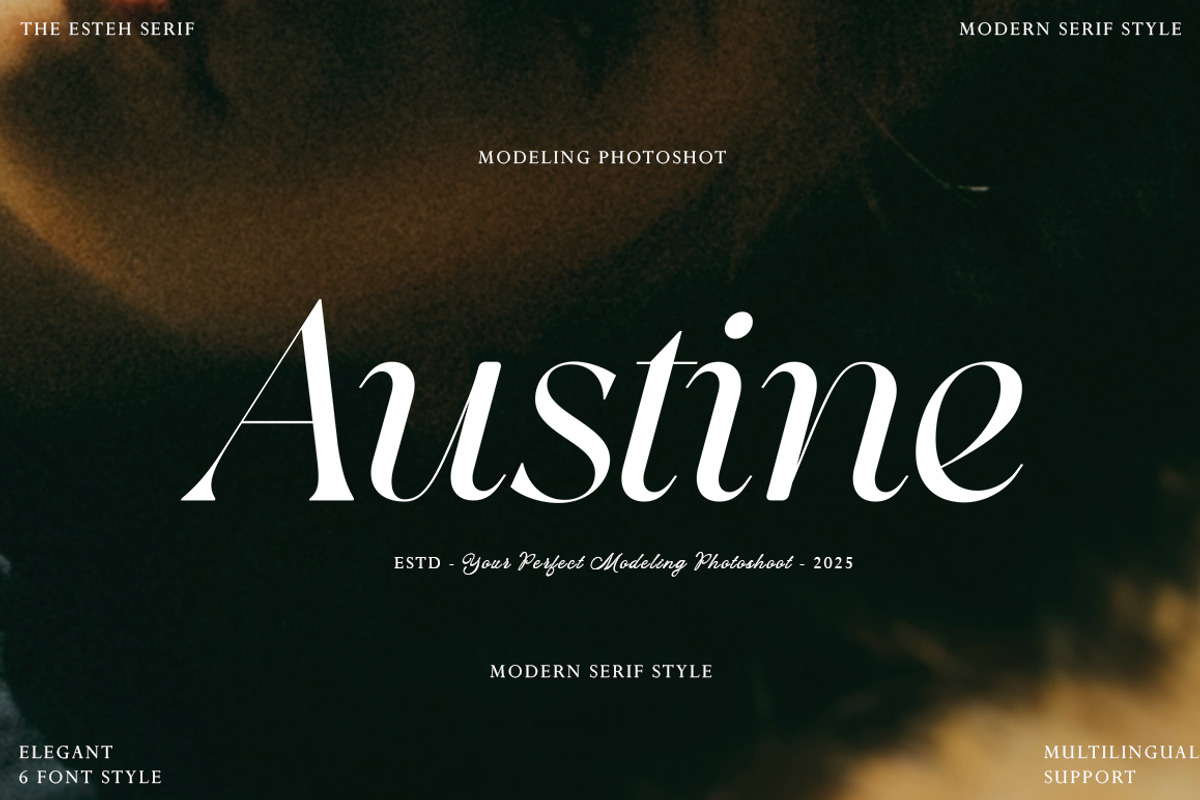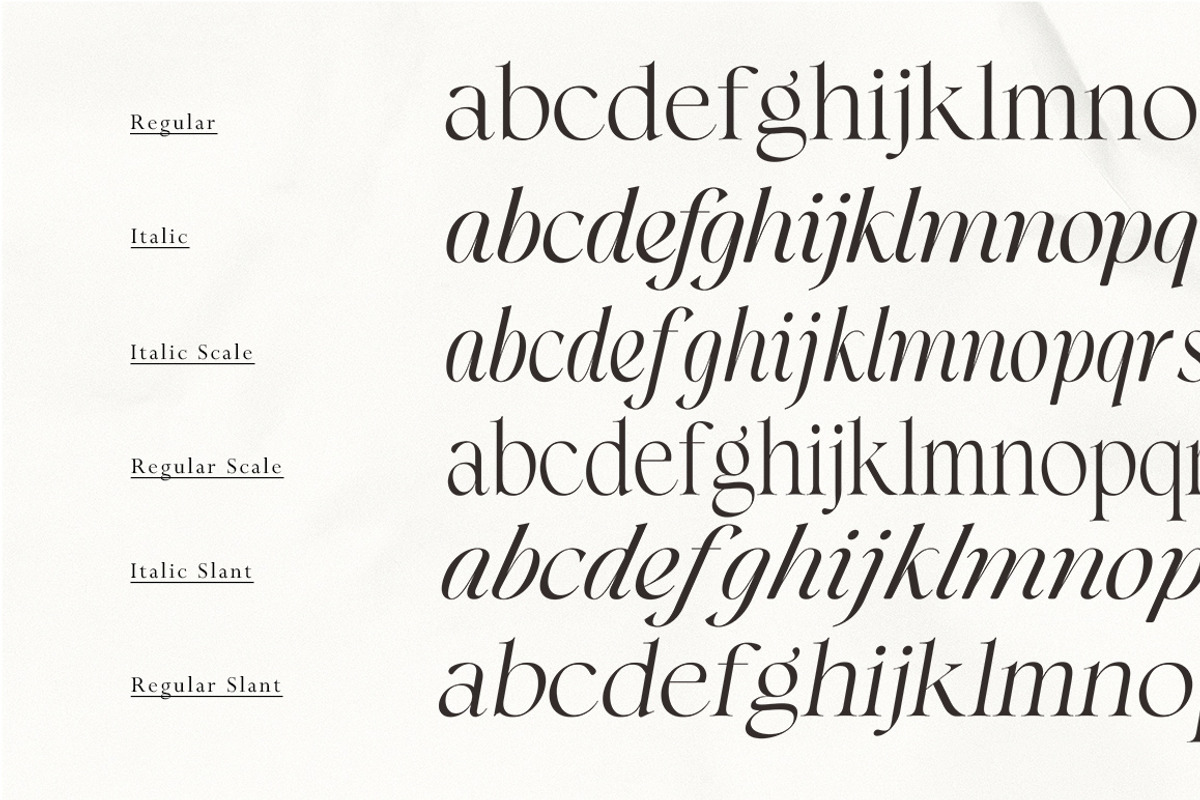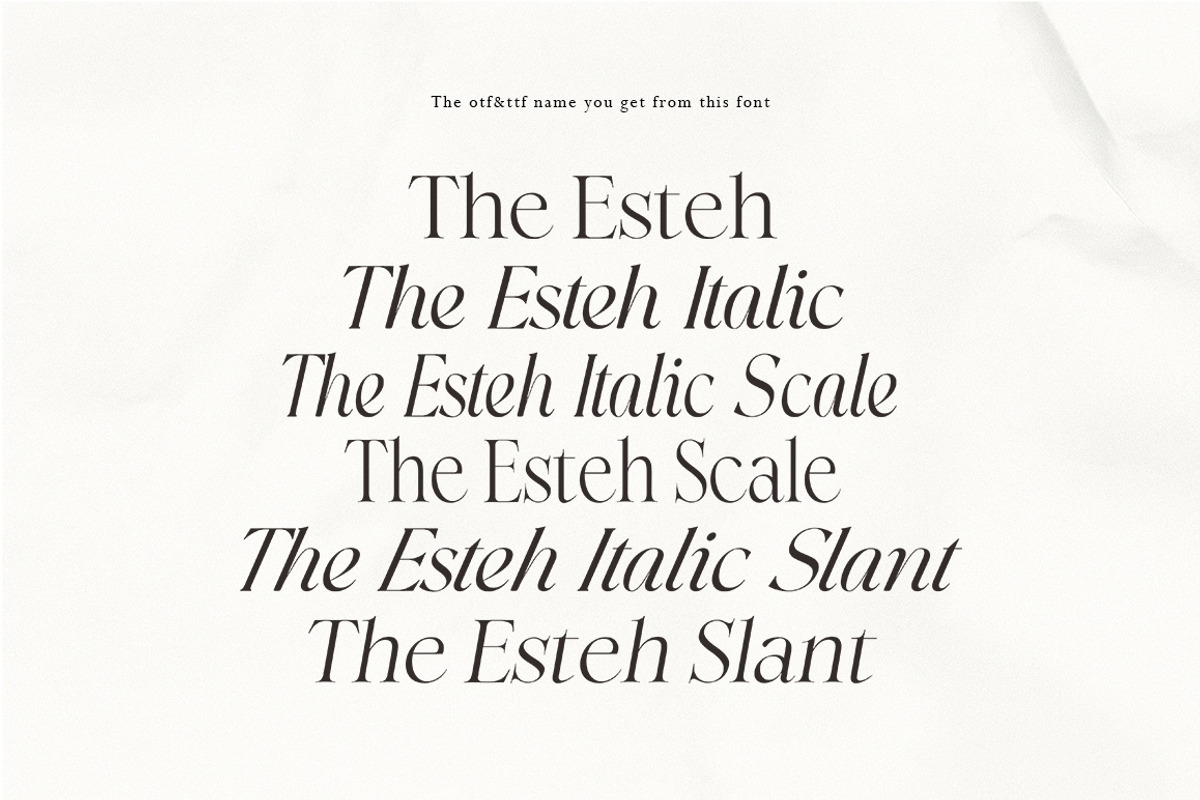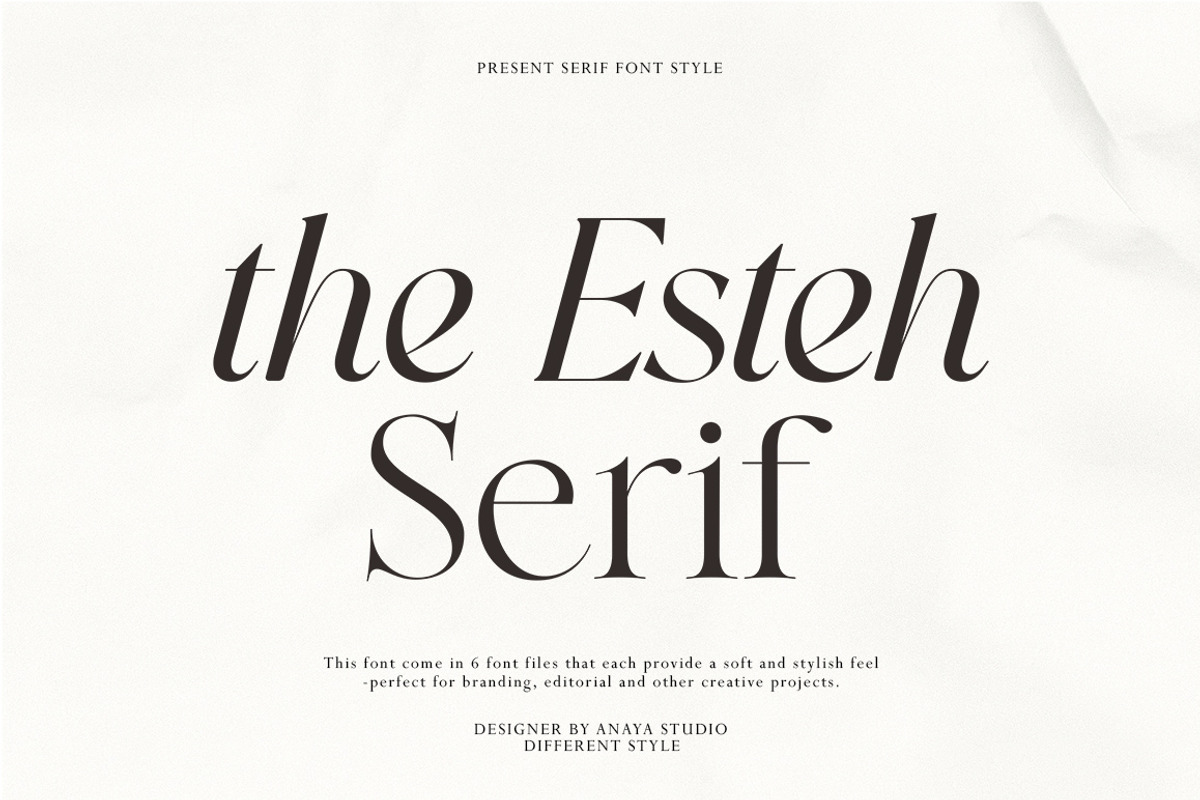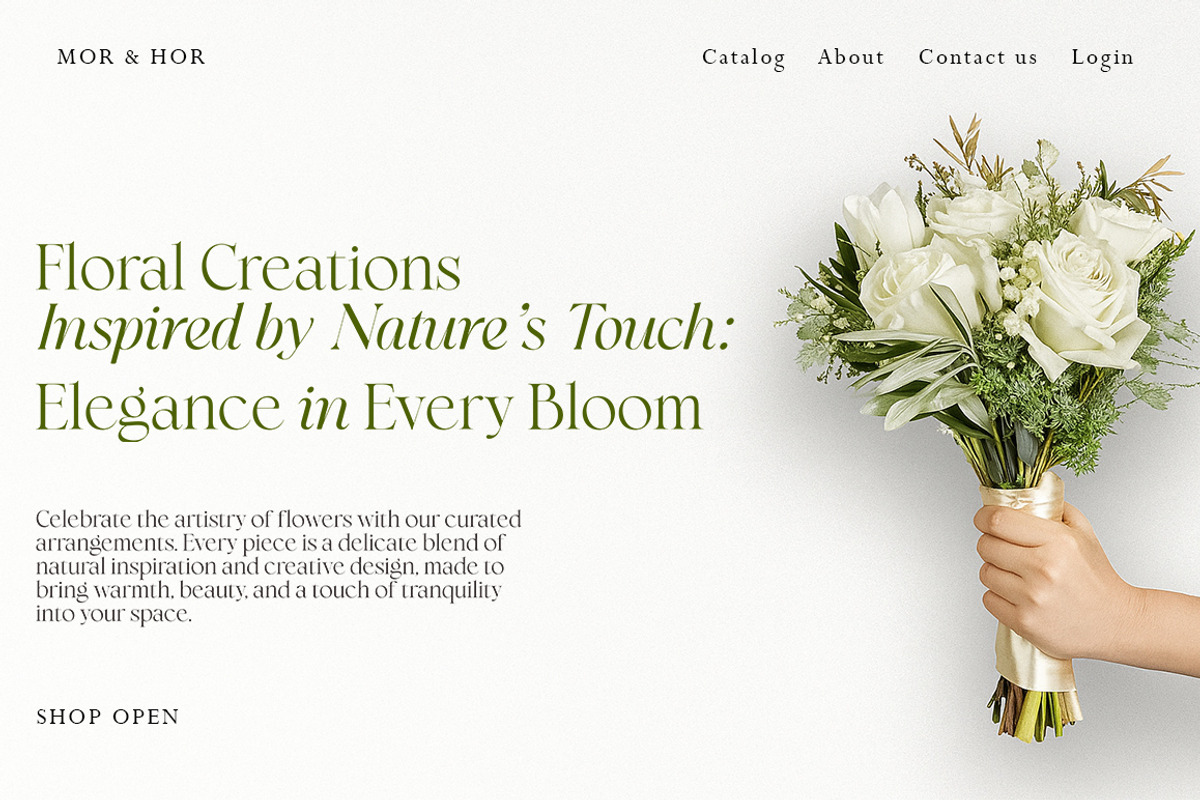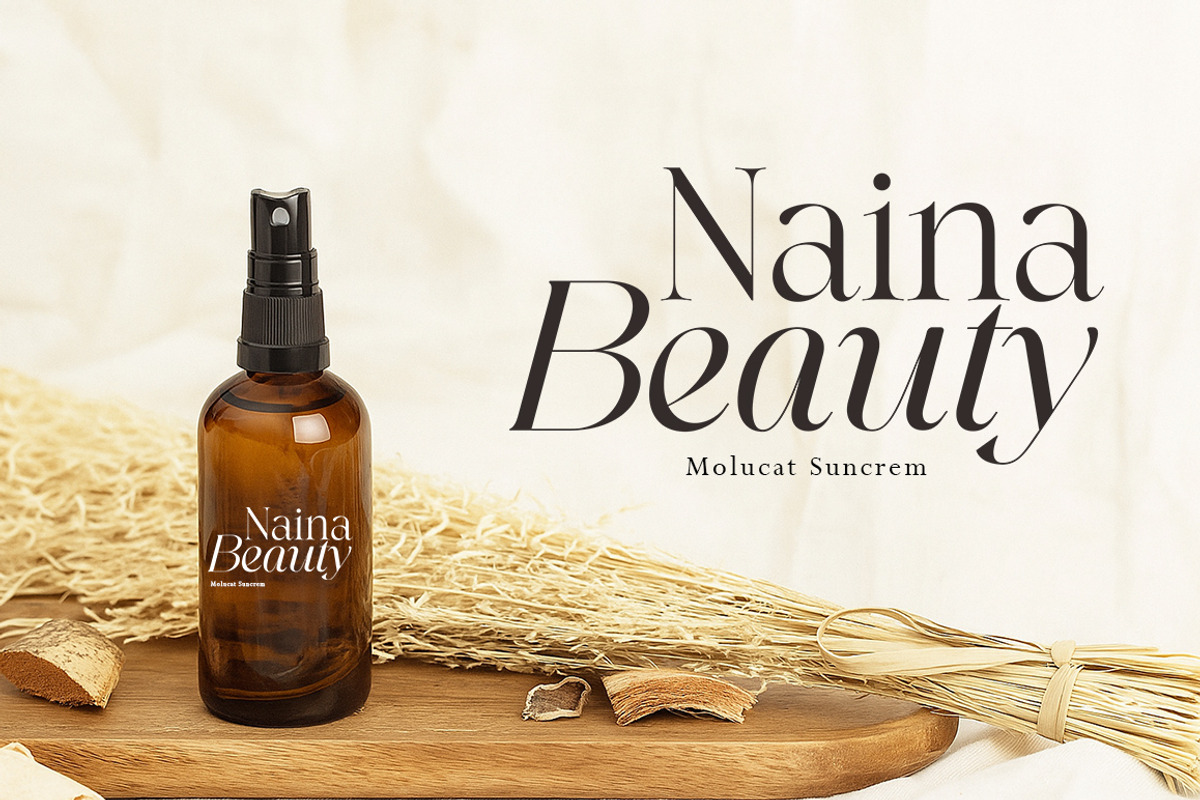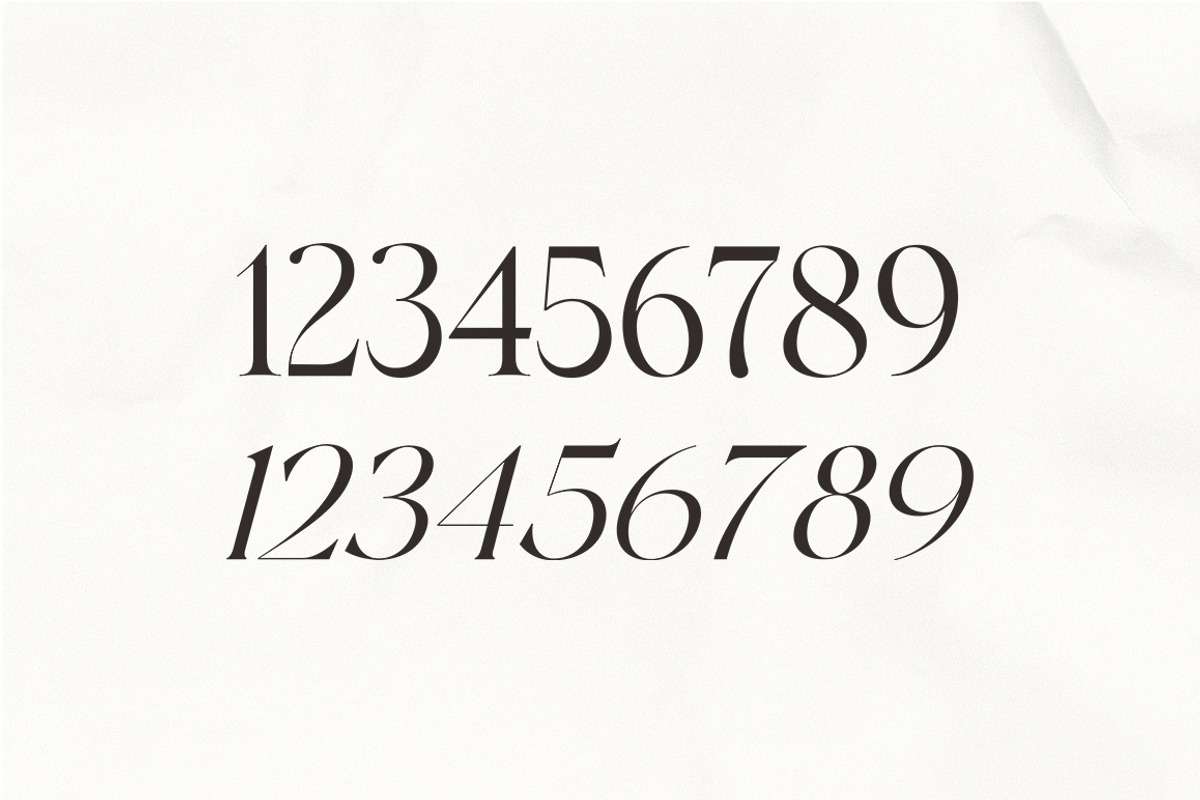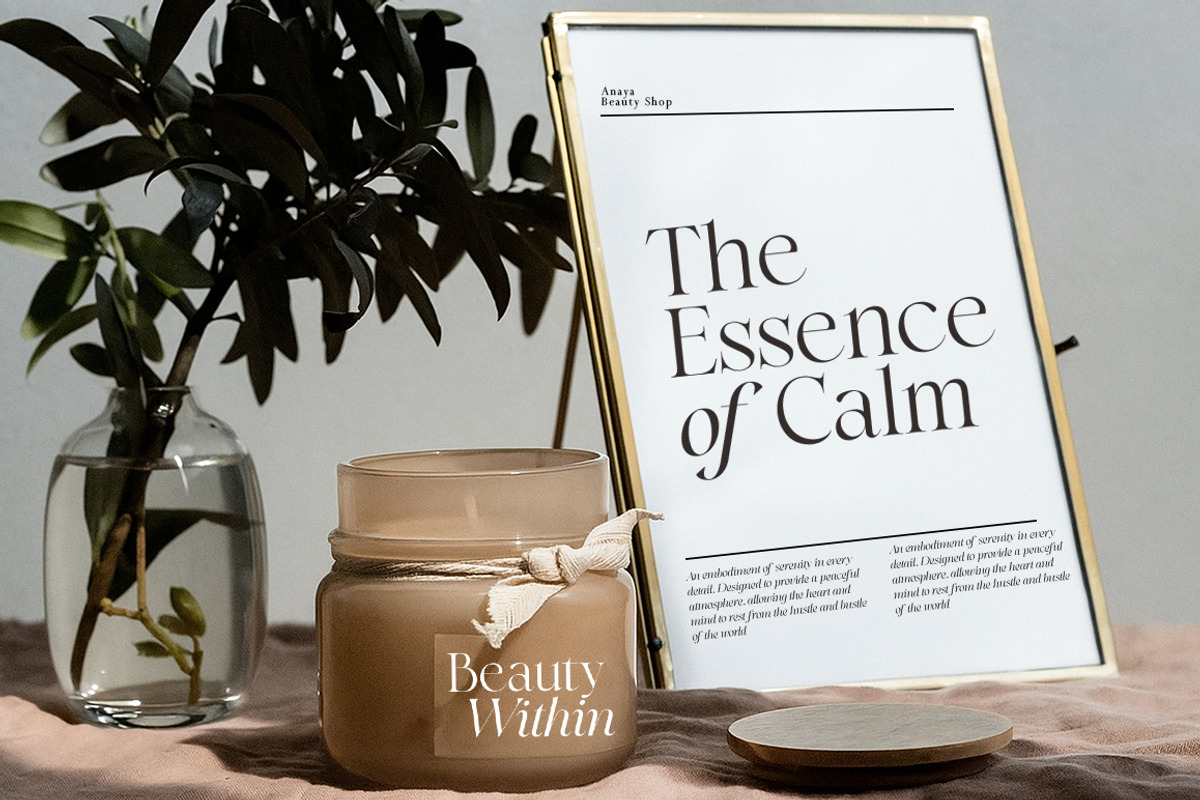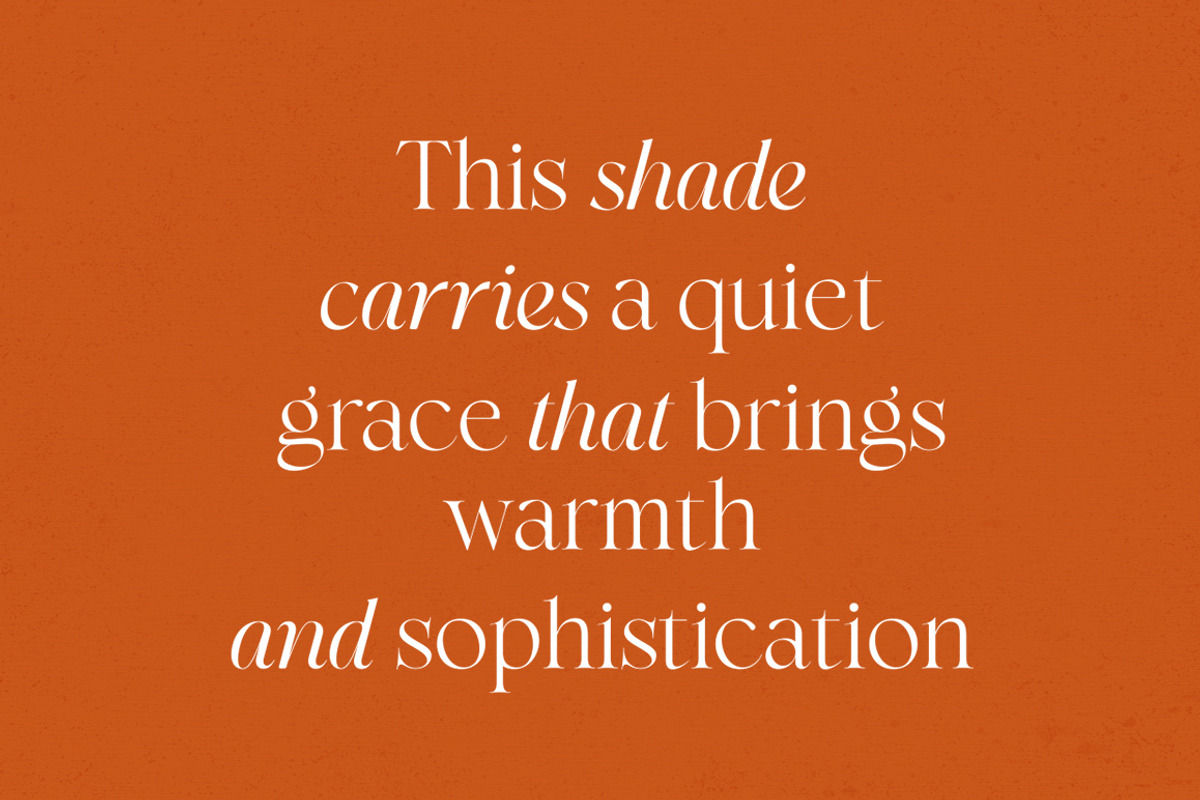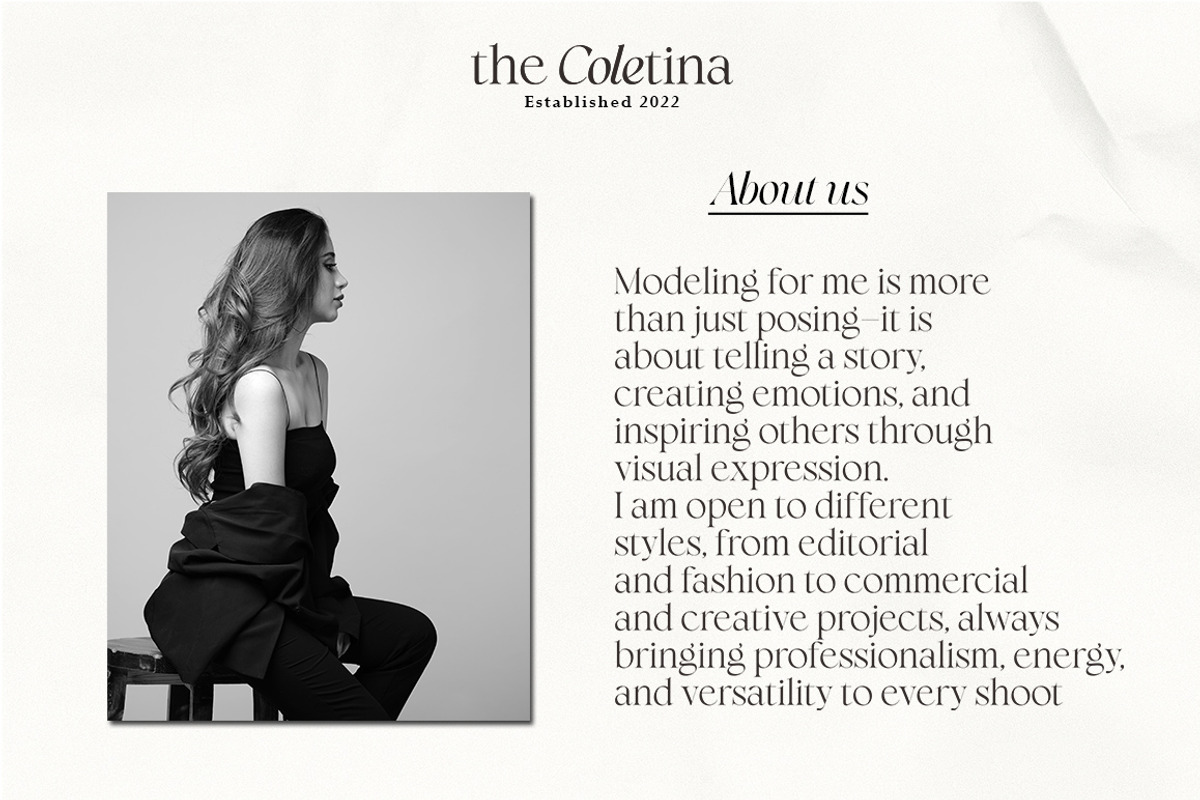
The Esteh Serif
Esthe Serif is a refined typeface that blends modern elegance with timeless classic charm. Its graceful curves and sharp serif details create a perfect balance of sophistication and readability, making it ideal for projects that demand both beauty and professionalism.
With 6 versatile styles included, Esthe Serif offers endless possibilities for branding, editorials, packaging, wedding invitations, and other creative works. Each letter is carefully designed to deliver a soft yet stylish impression, ensuring your designs stand out with a unique identity.
More than just a font, Esthe Serif is a statement piece that elevates every project with its luxurious and artistic character